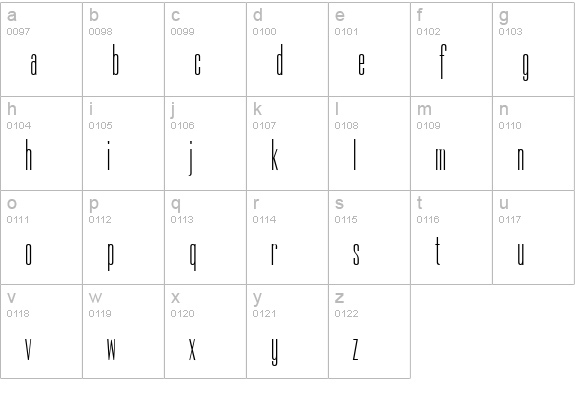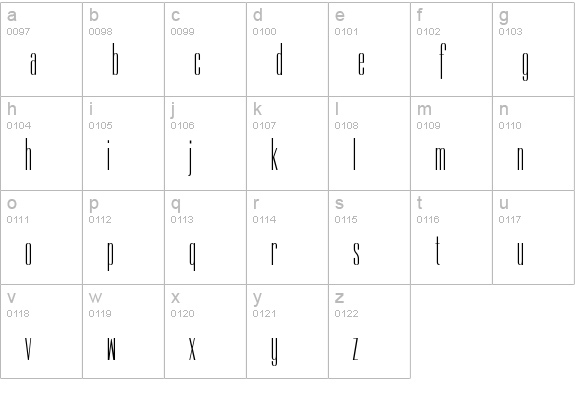
PFEmpire Thin Font Details
PFEmpire Thin is a delicate, low-contrast variant in the PFEmpire typeface family \xE2\x80\x94 well suited to fashion editorial, minimal branding, and high-contrast display.